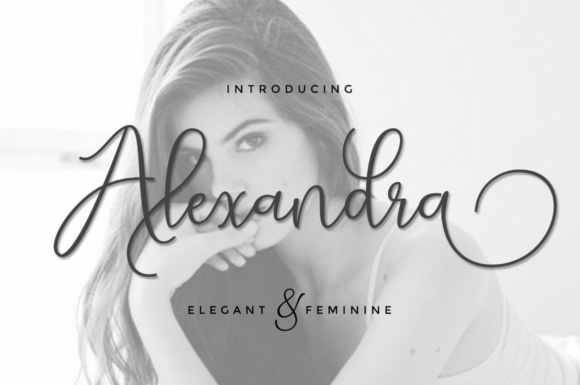
Discover the Elegance of Alexandra Script Font
A Personal Review of Alexandra Script Font
- ✨ Contemporary Script Style: Alexandra Script Font boasts a modern calligraphy style that aligns perfectly with current design trends.
- ✅ Versatility: This font is incredibly versatile, making it suitable for a wide range of projects, from branding and logos to fashion, cosmetics, apparel, journals, and more.
- 💫 Elegant and Trendy: The font exudes a natural, gentle, and glamorous appearance, perfect for creating stunning holiday celebrations and other design projects.
While Alexandra Script Font is an excellent choice for many design projects, there are a few things to consider:
- ⚠️ Legibility at Small Sizes: Like many script fonts, Alexandra Script may lose legibility when used at very small sizes. It’s best used at larger sizes where its details can shine.
- 🤔 Pairing with Other Fonts: Finding the right font pairing can be a bit challenging. It’s essential to choose complementary fonts that enhance the overall aesthetic of your design.
The Backstory of Alexandra Script Font
While the true origins of Alexandra Script Font may be shrouded in mystery, it’s clear that its designer aimed to create a modern, trendy script font that captures the essence of contemporary calligraphy. With its elegant lines and natural flow, Alexandra Script Font is perfect for designers looking to add a touch of sophistication to their projects.
Q: What makes Alexandra Script Font so versatile?
A: Alexandra Script Font’s versatility stems from its modern calligraphy style, which can be used in a wide range of design projects, from fashion and beauty to branding and editorial design.
Q: What are some tips for pairing Alexandra Script Font with other fonts?
A: When pairing Alexandra Script Font with other fonts, choose complementary fonts that contrast with its script style. Consider using sans-serif fonts for a modern look or serif fonts for a more classic feel.